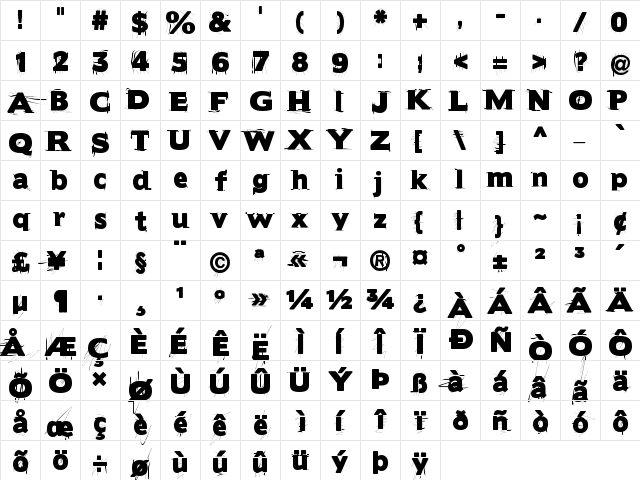
BorisBlackBloxxDirty Regular
BorisBlackBloxxDirty Family
Design Context for BorisBlackBloxxDirty
BorisBlackBloxxDirty is a composed and adaptable typeface that performs quietly and consistently across a wide range of design contexts.